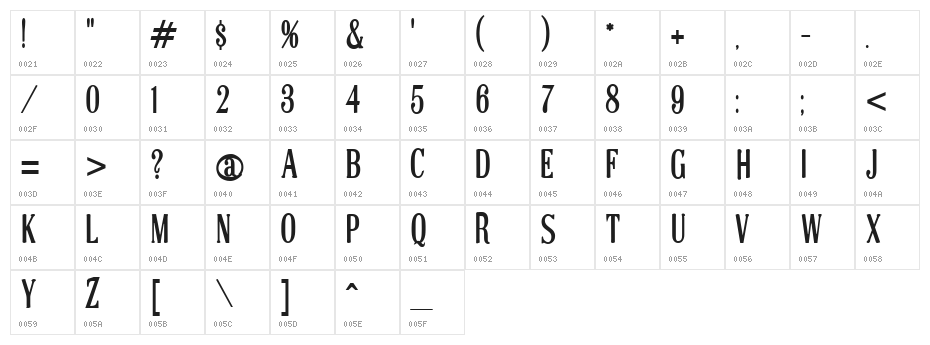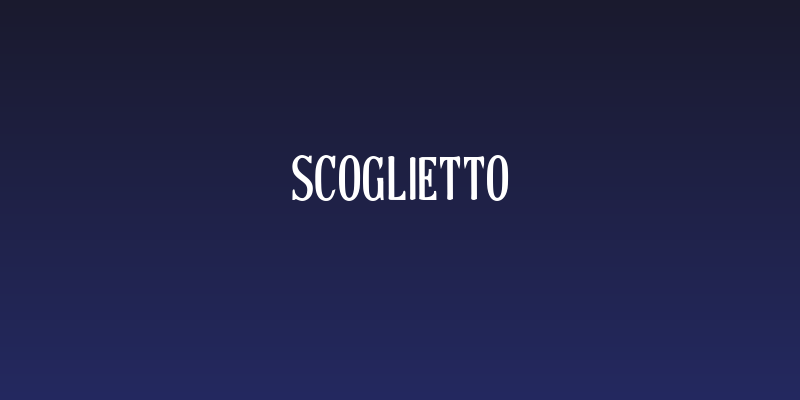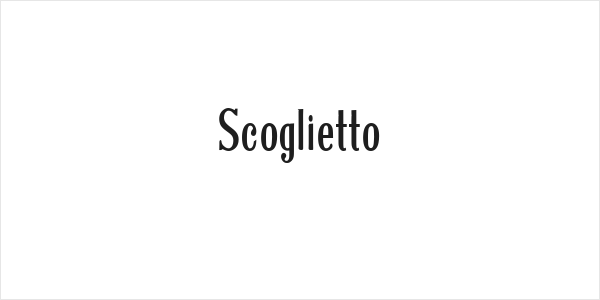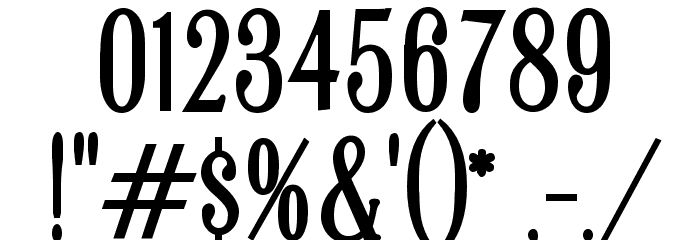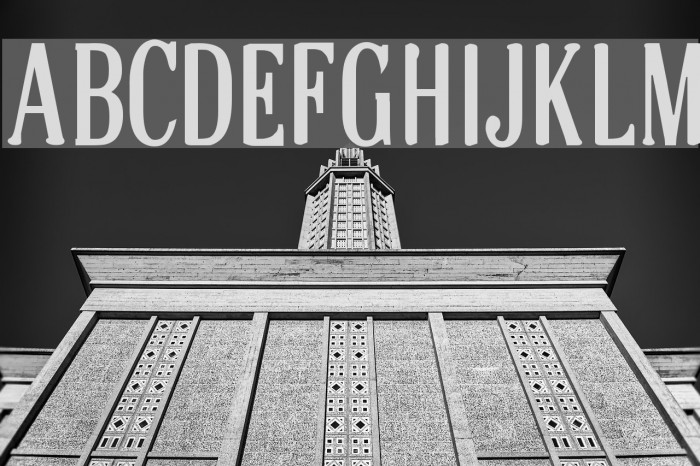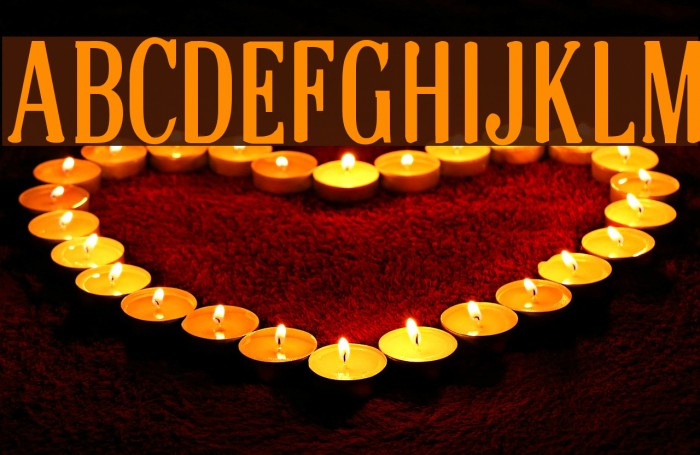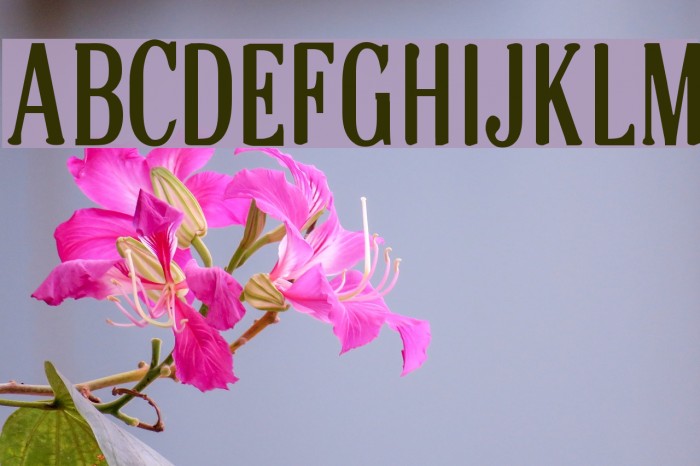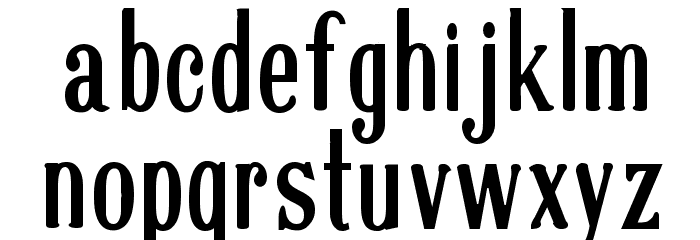
Scoglietto Font
Scoglietto Description
This font features a bold and expressive style with high contrast between thick and thin strokes, giving it a dynamic and eye-catching appearance. The characters are tall and slightly condensed, with a distinctive flair that adds a touch of elegance and sophistication. The uppercase letters are particularly striking, with their elongated forms and subtle curves. The lowercase letters maintain a consistent style, complementing the uppercase with their own unique charm. The numerals are clear and bold, ensuring readability. Special characters are well-designed, fitting seamlessly into the overall aesthetic.